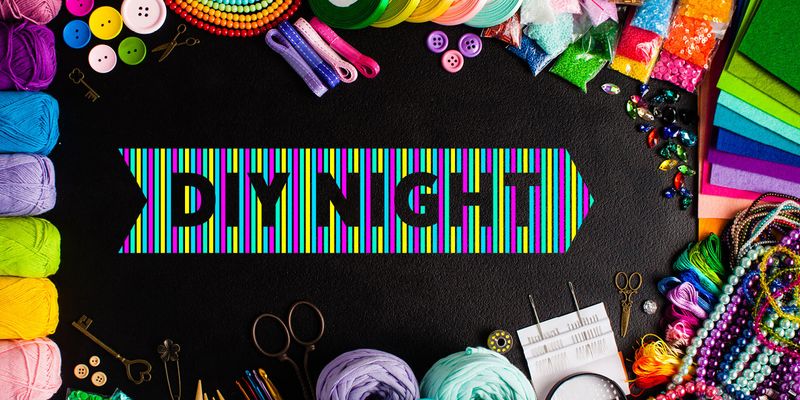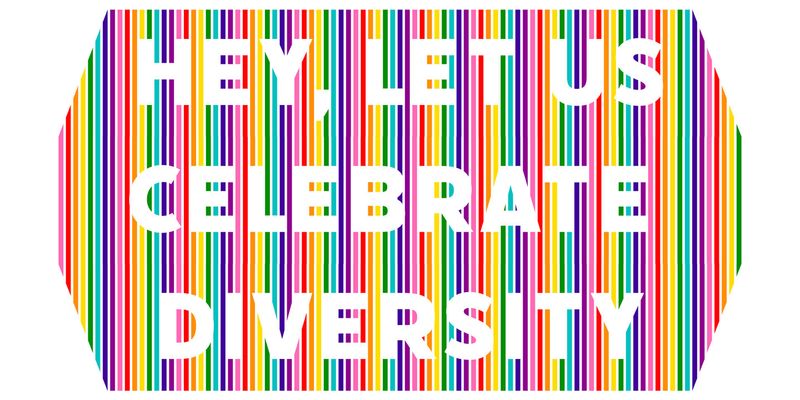
The Tipoteca Series is a family of three typefaces resurrected from the rich wood type collection of the popular letterpress museum and archive Tipoteca Italiana in Cornuda, Italy. This explosive series marks vol. II of Adobe’s Createfulness campaign, following the digital revival of 1920s graphic elements, symbols and pictograms from a handful of European metal type foundries, including Deberny & Peignot, Nebiolo and Trennert & Sohn.
In the spring of 2019, the design team of p98a.berlin rediscovered Tipoteca’s expressive wood type alphabets from various manufacturers, curated a small selection and made letterpress proofs from the original wooden letters for the purpose of restoring them digitally. Berlin-based type designer Ulrike Rausch carefully redrew the alphabets, expanded the character sets and added stylistic alternates as well as other OpenType features.
Pantelleria
Pantelleria shows off its strong character and burns with passion. Its explosive nature lends Pantelleria an overall sharp and pointed look, complemented by fully round shapes and cut-out counters in pretty much all angles from 0 to 360. Originally released in the 1930s as Etna by Xilografia Meneghello & Belluzzo, a wood type manufacturer based in Porto Legnago near Verona, Italy, the alphabet was merely accompanied by a set of figures. Pantelleria has now grown into a typeface equipped with all necessary punctuation, accents covering all Latin-based alphabets, stylistic alternates including a narrower R, a less-spreading S, and U. If you have something to say, you will get all the attention with Pantelleria.
Filicudi
Filicudi is a two-layer display typeface with roots from Milan. While the weights Solid and Striped are each extraordinary solo artists, the latter marks the more exceptional character—yet they unfold a remarkable relationship as a duo. Filicudi Striped was originally conceived under the less spectacular name “no. 344”, mentioned as part of a larger multi-layered family in a 1930s type specimen catalogue of the Xilografia Milanese. It follows a style that was popular among type foundries in the 1930s all over Europe. Filicudi is ideal for use in large sizes, suited for announcements, advertising, and movie posters. Its remarkable feature is the ability to design banners, with several terminals such as arrows, wedges and semi-circles to chose from.
Flegrei
Flegrei is a geometric expressionist. Constructed from ruler and compass, A and O make a bold statement by simply appearing as triangle and full circle. Flegrei has no enclosed counters, lending all lines of text a black texture and strong contrast between words. Hairlines planted in E, F and H bloom as spots of elegance. Its extended character set includes stylistic alternates, including a Pac-Man-like C, an H with a bold crossbar and a more reasonable, space-saving S. Italians call the @ symbol chiocciola, meaning snail—look at this one and you know why. Let’s be frank, Flegrei is no text typeface, but its charming flat-surfaced appearance cuts a fine line in any title sequence.